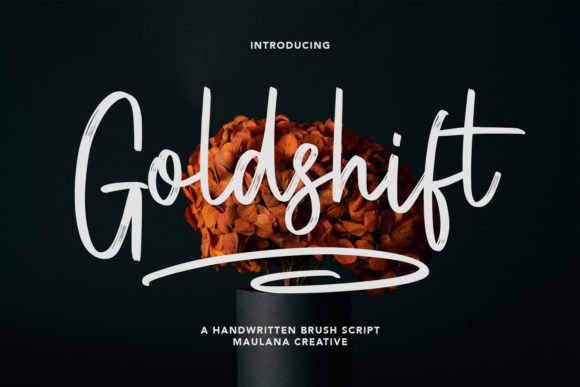
When Words Come to Life
Imagine you’re sitting at your desk, surrounded by scribbled notes and half-finished designs. You’re searching for the perfect font to bring your latest project to life. As your eyes scan through the countless options, you stumble upon a font that makes your heart skip a beat – a beautiful, handwritten script that exudes warmth and personality.
This is where the Goldshift Font comes in – a cool and relaxed brushed handwritten font that’s perfect for adding a personal touch to your designs. Whether you’re creating wedding invitations, thank you cards, or logos, this font is sure to make your work stand out. As a designer, you know how valuable it is to have a versatile font that can adapt to any project. The Goldshift Font is that game-changer, offering a unique look that’s both timeless and trendy.
Goldshift Font Key Features
- Font Family: Goldshift is a high-end, luxury font family designed for premium applications.
- Character Set: The font includes a comprehensive character set, including Latin, Cyrillic, and Greek alphabets, as well as a wide range of symbols and punctuation marks.
- Unique Characteristics: Goldshift features a unique blend of modern and classic elements, with intricate details and ornate flourishes that evoke a sense of luxury and sophistication.
Goldshift Font Review
Overall, I think the Goldshift Font is a solid choice for designers looking for a unique, high-end feel. ✨ The font’s ability to shift between different colors and shades is truly innovative and can add a touch of sophistication to any design project.
- ✨ Unique color-shifting effect: The Goldshift Font’s ability to change colors based on the background or surrounding text is a game-changer for designers looking to add some visual interest to their work.
- ✨ Versatile: The font is available in a range of weights and styles, making it suitable for a variety of design projects, from logos to body text.
- ✨ High-quality: The font’s overall quality is excellent, with crisp lines and smooth curves that make it a pleasure to work with.
Overall, I’d recommend the Goldshift Font to designers who are looking for a unique and high-end font that can add a touch of sophistication to their work. While it may have some limitations, the benefits far outweigh the drawbacks in my opinion.
Experiment with different font sizes and colors to create visually appealing combinations. Use Goldshift Font for headings or titles to add a touch of elegance. Combine Goldshift Font with other fonts to create a unique and eye-catching design.
Goldshift Font is ideal for creating invitations, wedding stationery, and other special occasion materials. It’s also great for designing business cards, brochures, and other marketing materials. The font’s elegant and sophisticated look makes it perfect for luxury brands and high-end designs.